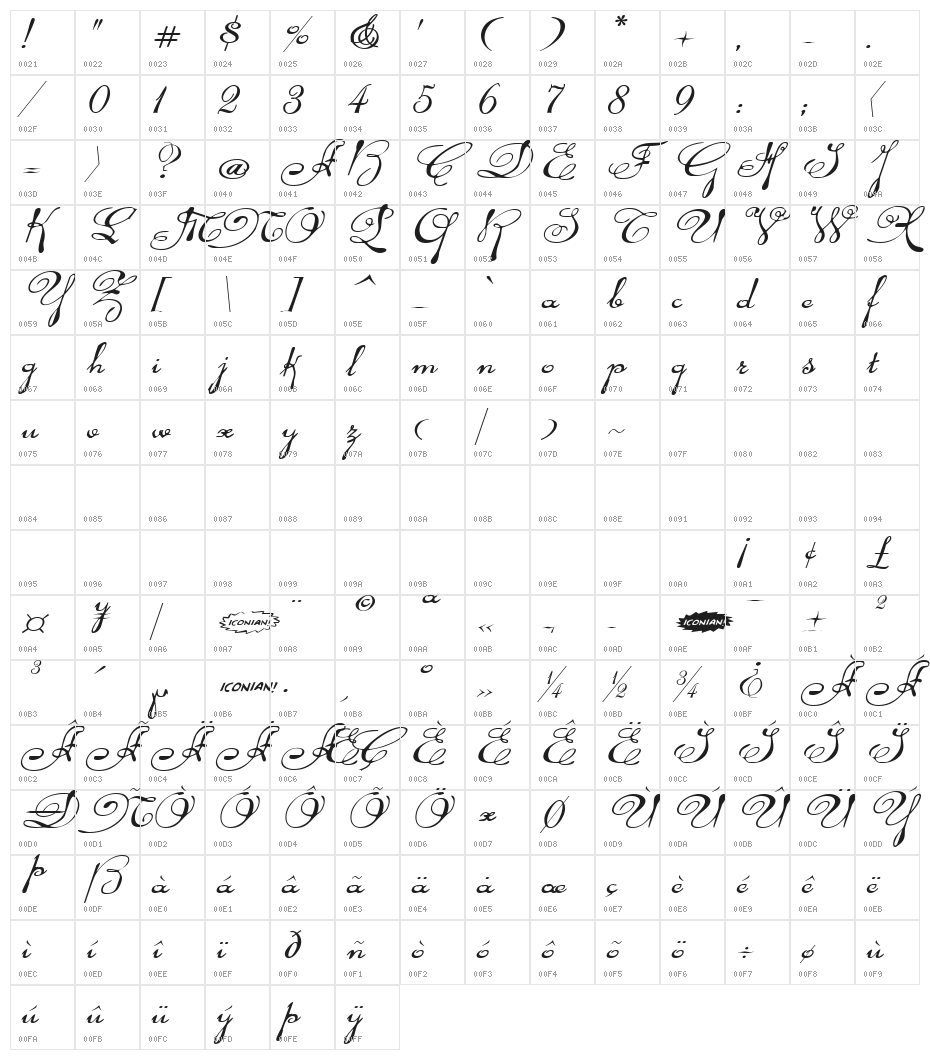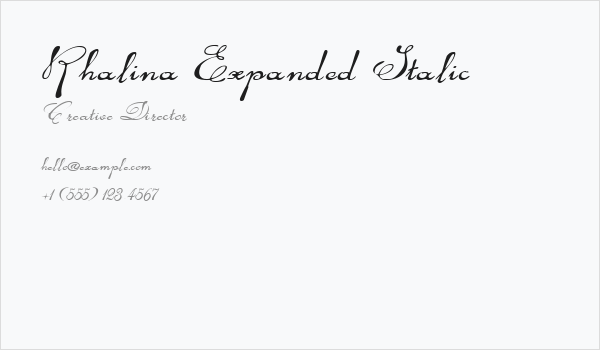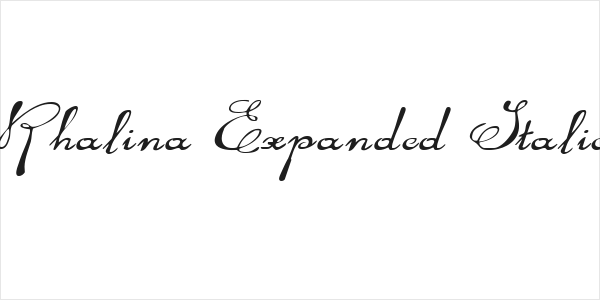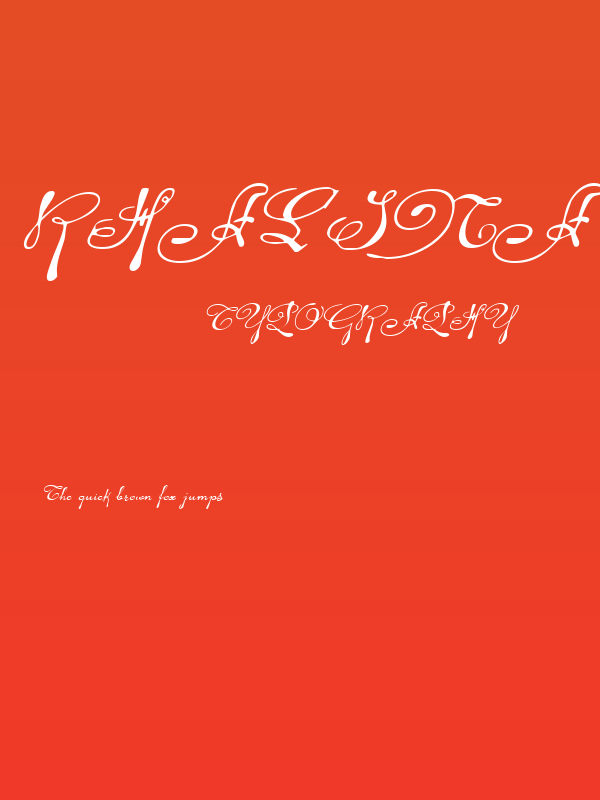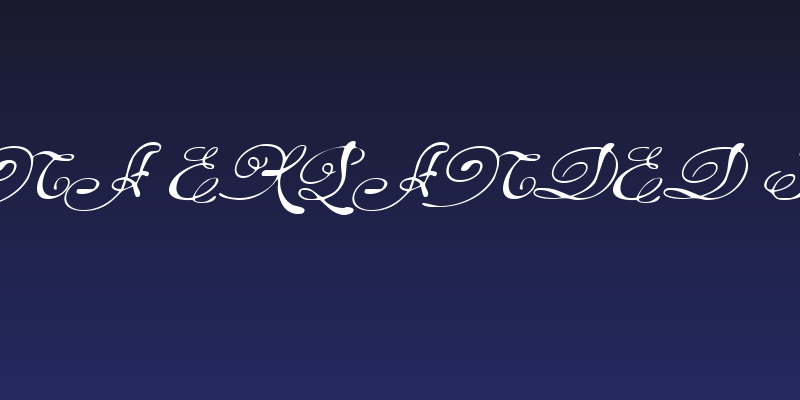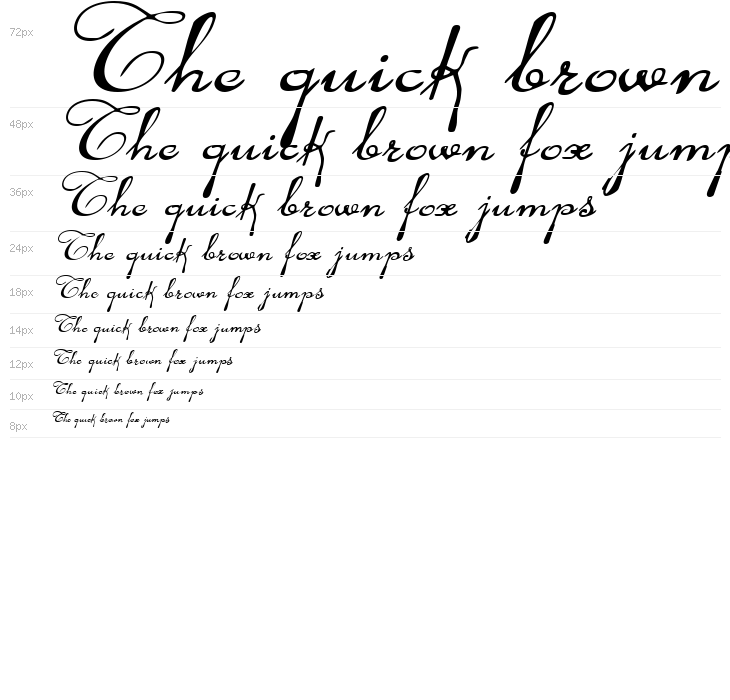
Rhalina Expanded Italic Font
Rhalina Expanded Italic Description
This font exudes elegance and sophistication with its flowing, cursive style. The characters are intricately designed, featuring smooth curves and delicate flourishes that give it a refined and artistic appearance. The uppercase letters are particularly ornate, with elaborate loops and swirls that add a touch of grandeur. The lowercase letters maintain a consistent flow, making the text appear seamless and connected. The numerals are stylishly crafted, complementing the overall aesthetic. Special characters are equally decorative, enhancing the font's versatility for creative projects.
| Proposed Projects | Ideal for wedding invitations, luxury branding, elegant stationery, and artistic posters. |